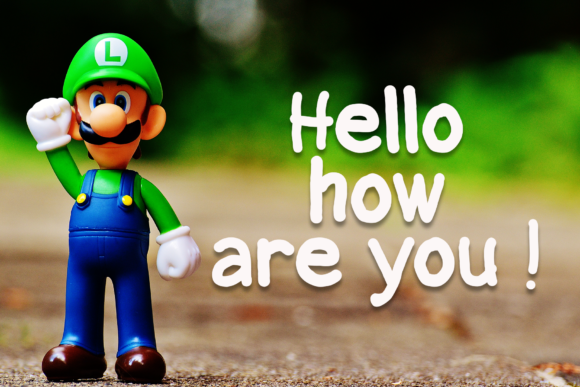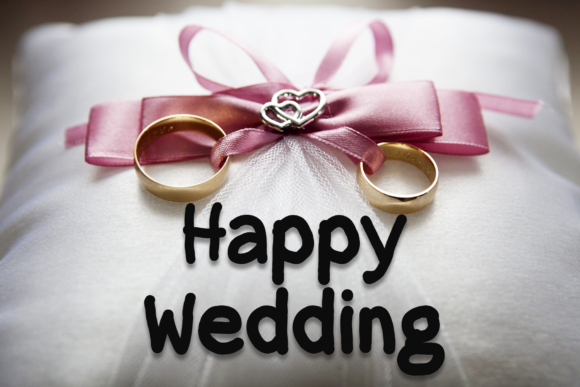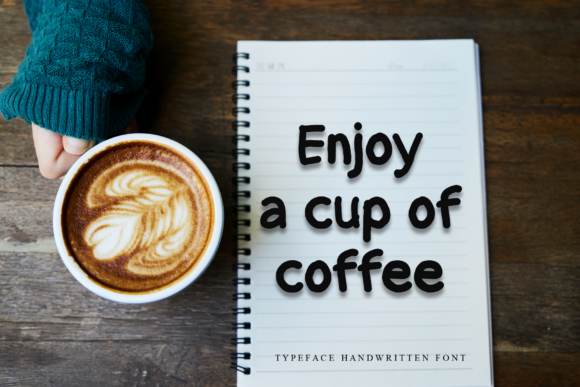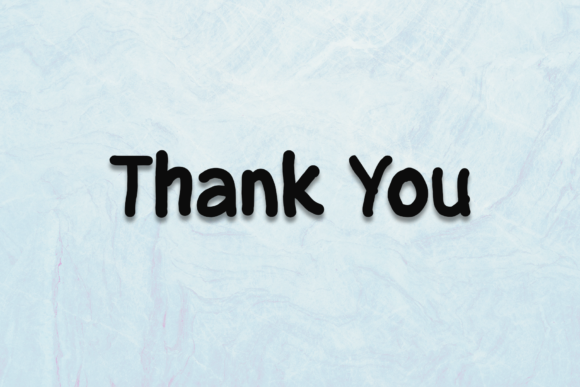
Introduction to Khalitta Font
That’s where the Khalitta Font comes in – a simple yet quirky display font that’s as unique as it is versatile. With its natural style, this font has the power to breathe new life into even the most mundane designs, making it an invaluable resource for any creative project.
What sets the Khalitta Font apart is its high quality and transparent background, making it the perfect addition to any design. And the best part? It’s available for free download, making it an accessible resource for designers of all levels. Whether you’re working on a professional project or a personal passion project, the Khalitta Font is sure to inspire your next creative move.
- Includes a range of glyphs and characters, making it a versatile design resource for various creative projects.
- Designed with a focus on clarity and readability, ensuring that your text-based content stands out in your design.
Honest Review: Khalitta Font
I recently stumbled upon the Khalitta Font, and I’m excited to share my thoughts on this design resource. As a designer, I’m always on the lookout for high-quality fonts that can elevate my creative projects.
The Khalitta Font is a free download, which is a huge plus in my book. It’s always great to have access to quality design resources without breaking the bank. Upon closer inspection, I was impressed by the font’s clean and modern design. The transparent background makes it easy to use in a variety of creative contexts.
- Modern and clean aesthetic
- Transparent background for versatility
- ⚠️ Limited character set, may not be suitable for complex text-based projects
- ⚠️ Some users may find the font too minimalist, lacking in personality
Overall, I’m impressed with the Khalitta Font. While it may not be perfect, it’s a solid addition to any designer’s toolkit. I’d recommend it to anyone looking for a high-quality, free font for their creative projects. ✨
To get the most out of the Khalitta Font, use it with a transparent background to create a clean and modern look. You can also experiment with different font sizes and styles to add visual interest to your designs.
The Khalitta Font is perfect for:
- Creating social media graphics
- Designing business cards and brochures
- Developing e-learning materials